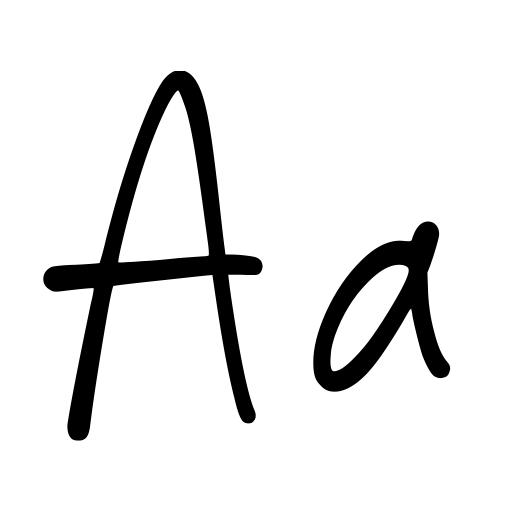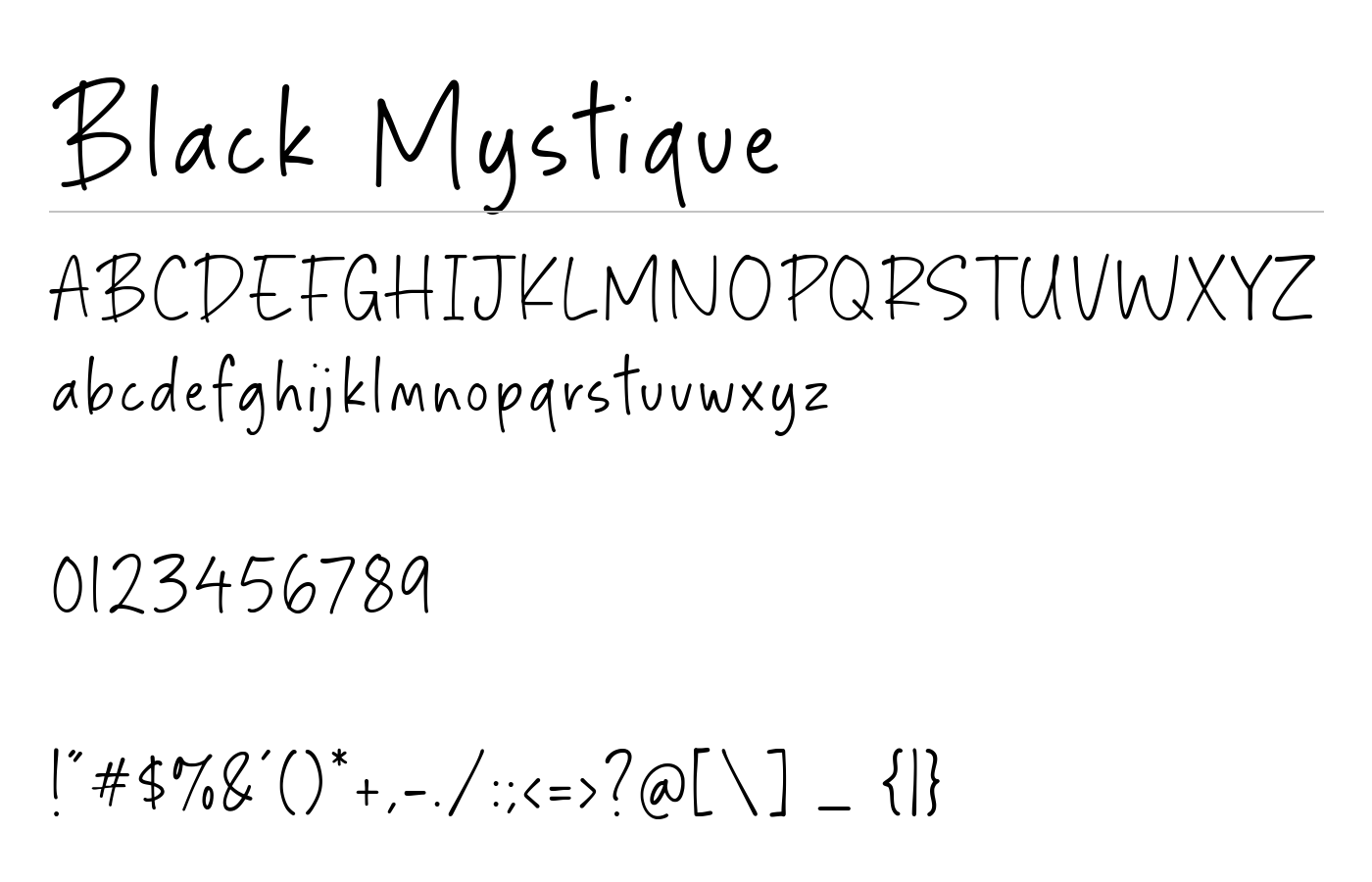
Black Mystique is a casual, handwritten sans serif font with a light weight and airy feel. Its tall, narrow letterforms and slight irregularities create a natural, personal touch, making it perfect for informal, friendly designs like invitations, youth-oriented branding, or creative projects. This font works well in both display and body text where a relaxed yet clear style is desired.
Black Mystique Font
About Black Mystique Font